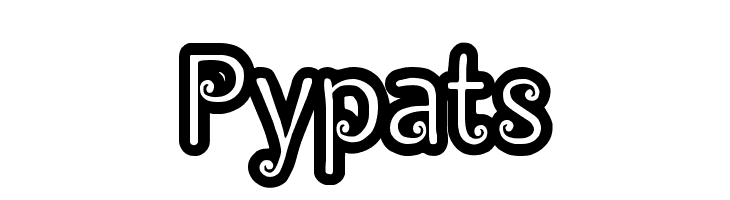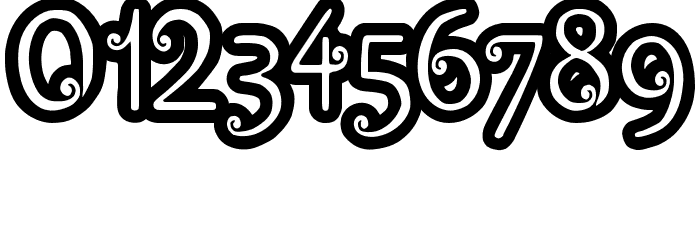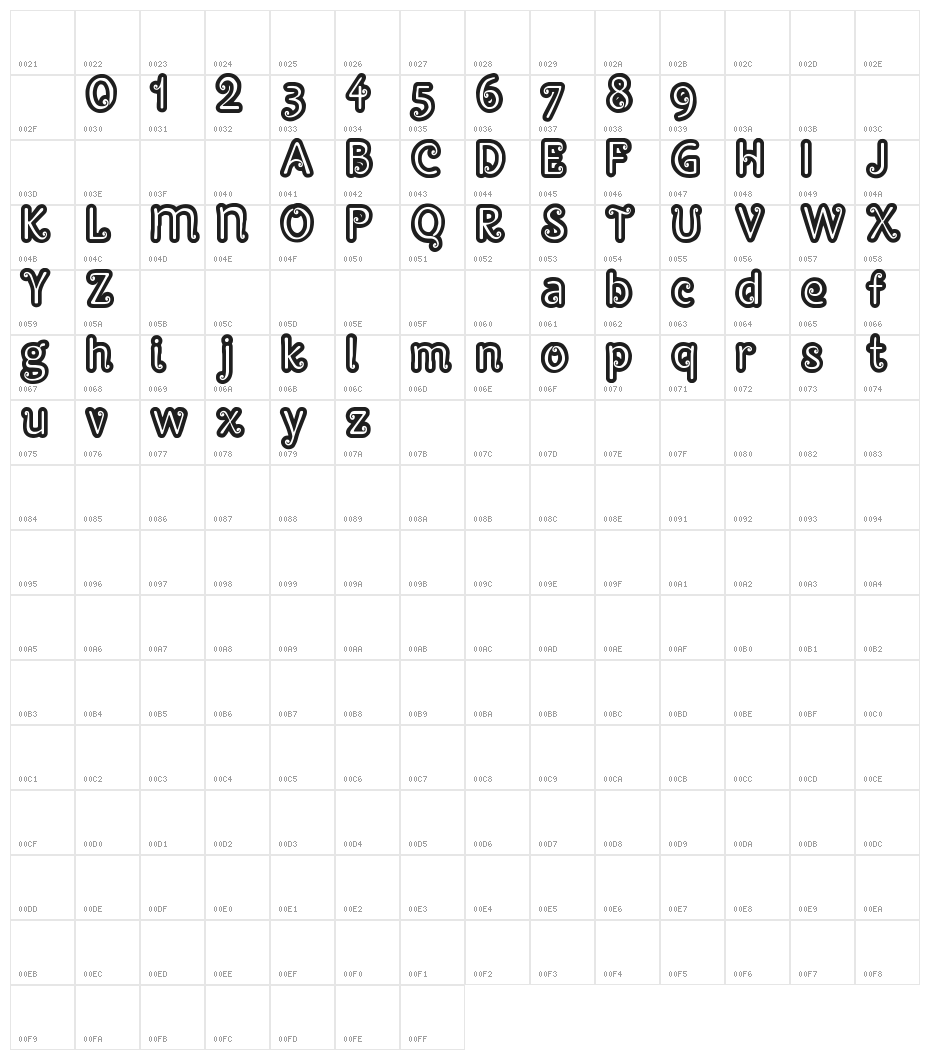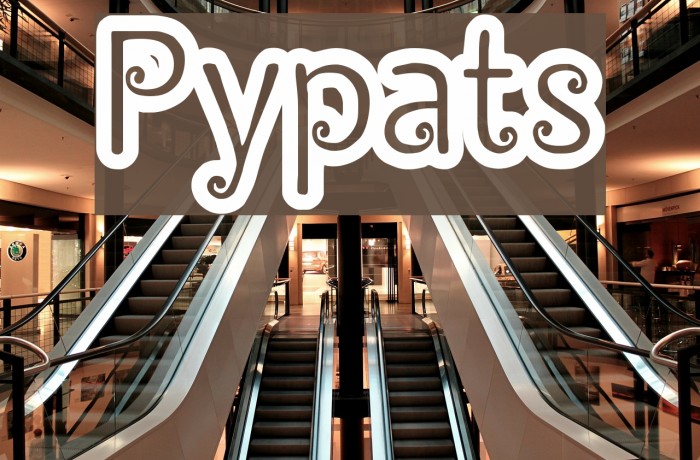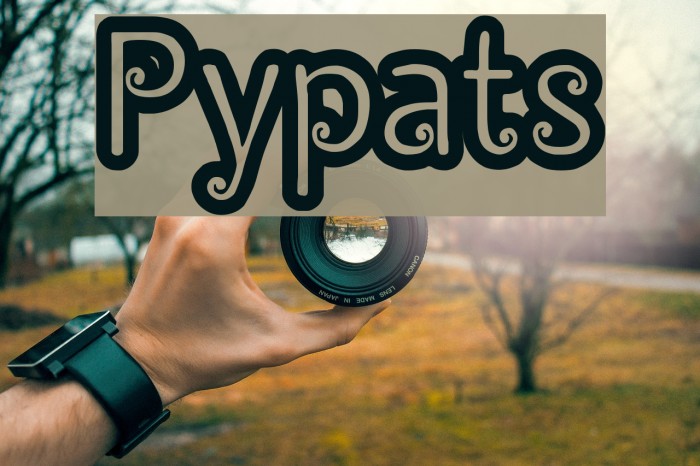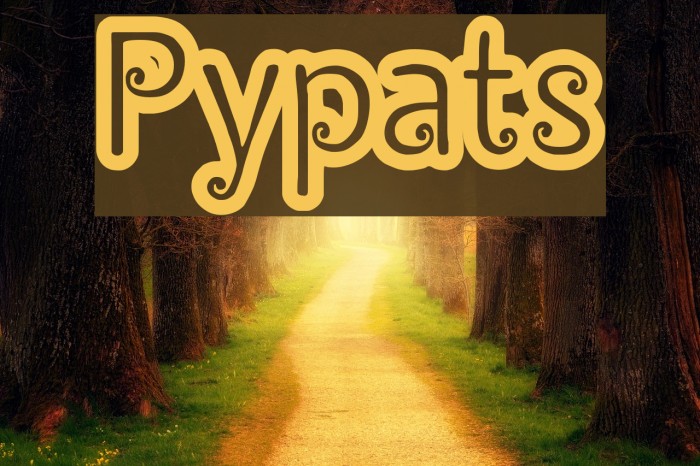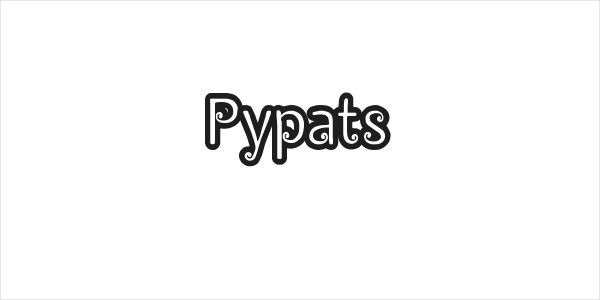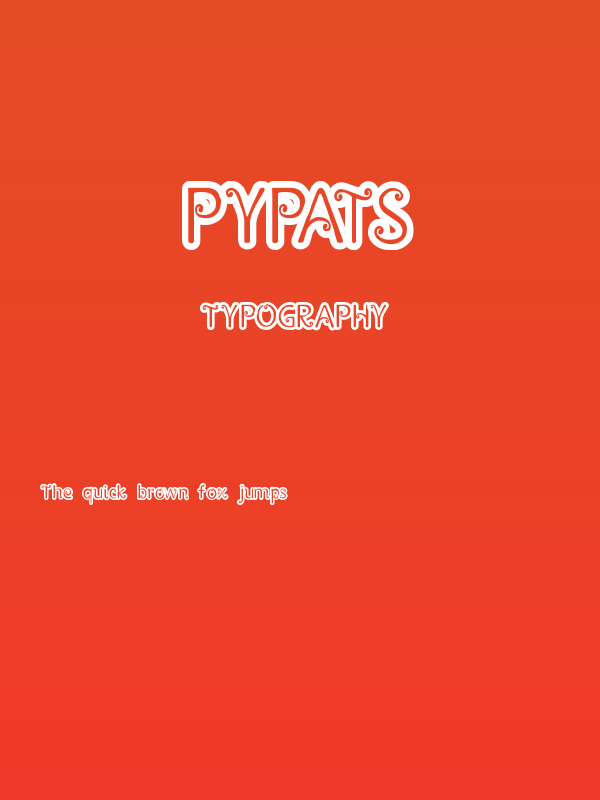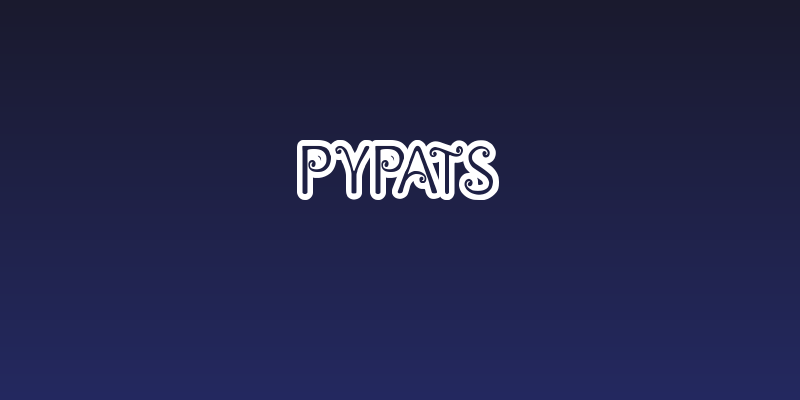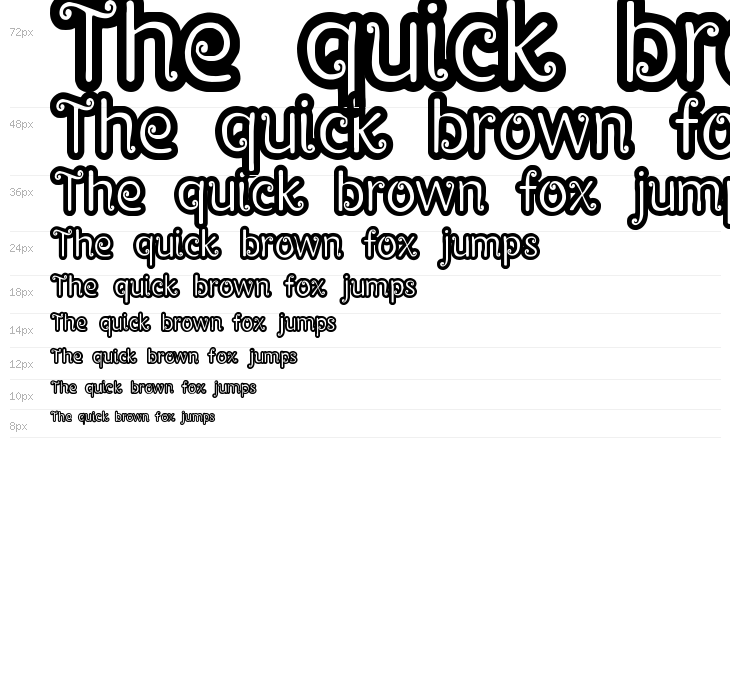
Pypats Font
Pypats Description
This font features a playful and bold design with a distinct outline that gives each character a three-dimensional appearance. The letters are rounded and have a consistent thickness, creating a cohesive and unified look. The uppercase and lowercase letters maintain a similar style, with slight variations in size and shape to distinguish them. The numbers are equally bold and maintain the same playful aesthetic, making them stand out. The special characters are designed to match the overall style, ensuring a harmonious look across all elements. This font is ideal for projects that require a fun and engaging visual impact.
| Overall Style | Playful, Modern |
| Proposed Projects | Ideal for children's books, playful branding, posters, and creative invitations. |